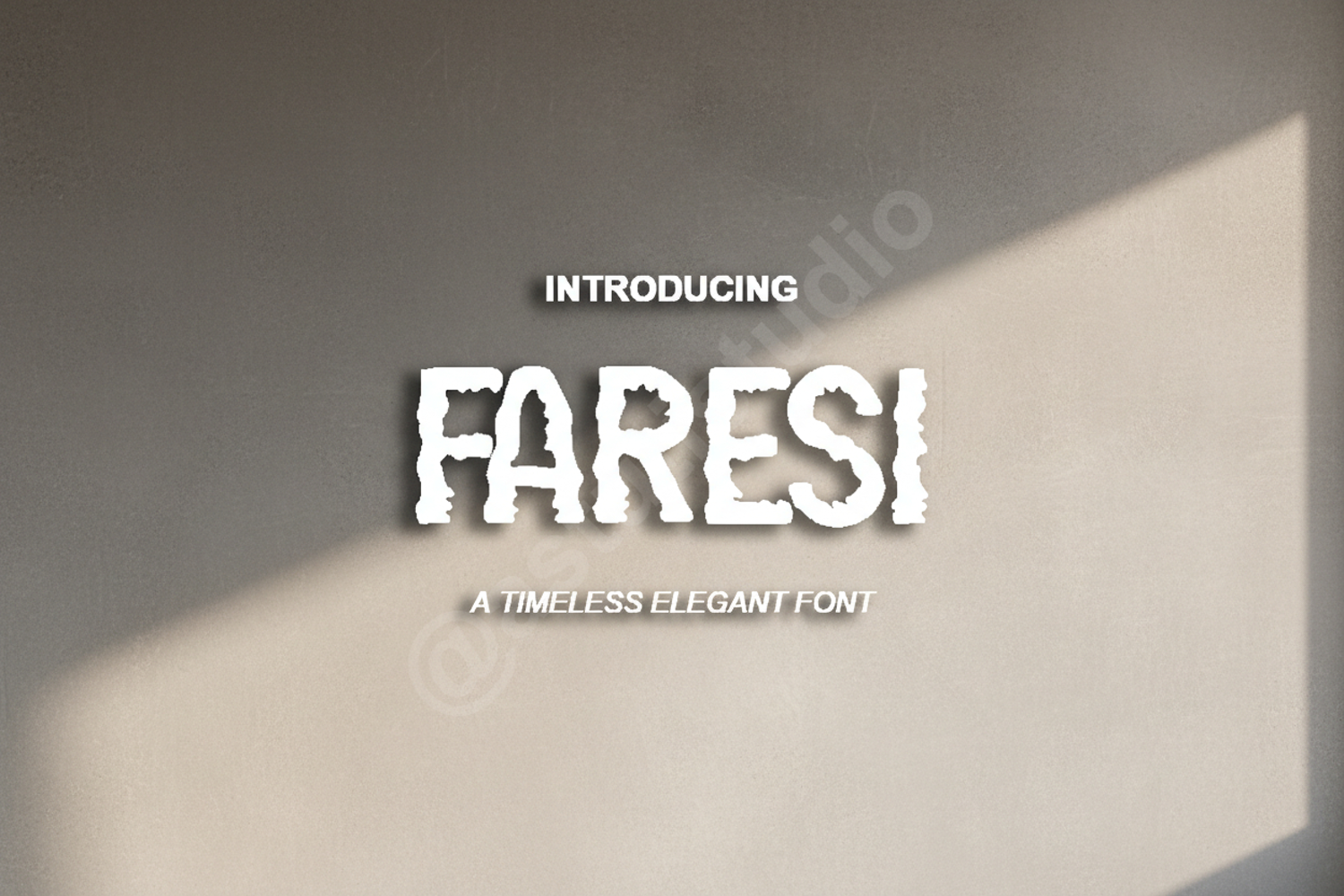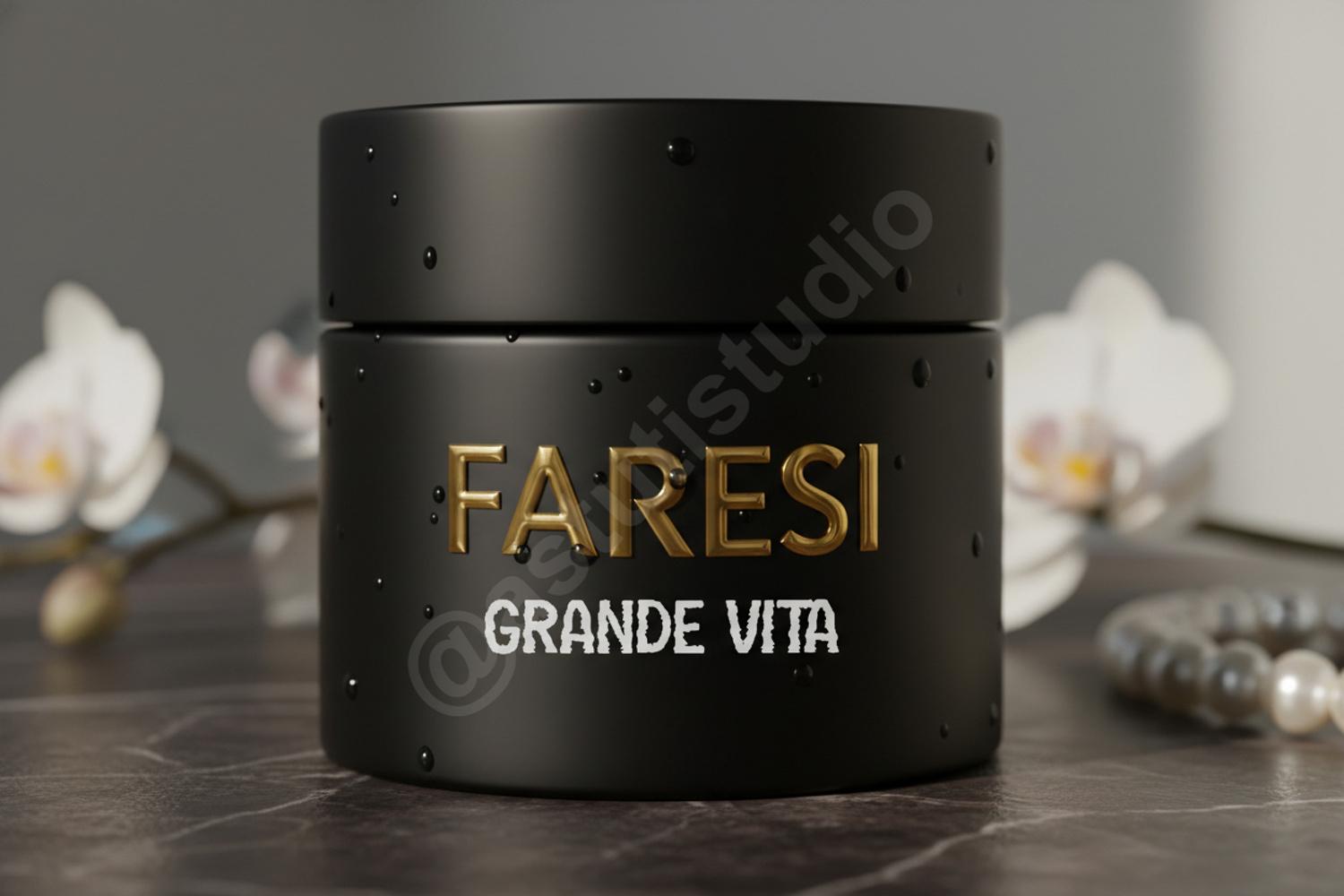
Faresi - Sophisticated Modern Serif Typeface
Faresi
Elevate your creative projects with Faresi, a sophisticated modern serif typeface designed for those who value elegance and versatility. Faresi strikes a perfect balance between classic letterforms and contemporary minimalism, making it a timeless addition to any designer's toolkit. Whether you are crafting a high-end brand identity or a minimalist editorial layout, this font delivers a polished and professional aesthetic that commands attention.
- Full set of uppercase and lowercase letters
- Numerals and punctuation
- Unique ligatures and alternates for custom styling
- Multilingual support for global accessibility
Faresi is highly versatile and performs exceptionally well across various design mediums, including:
- Branding and Identity: Create memorable logos and brand marks for luxury or lifestyle companies.
- Editorial Design: Perfect for magazine headers, book covers, and sophisticated layouts.
- Wedding and Events: Add a touch of class to invitations, menus, and place cards.
- Social Media: Design eye-catching quotes and promotional graphics.
- Web Design: Use as a striking heading font for modern, high-end websites.